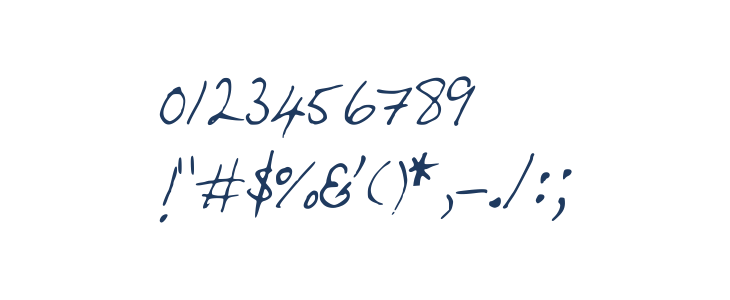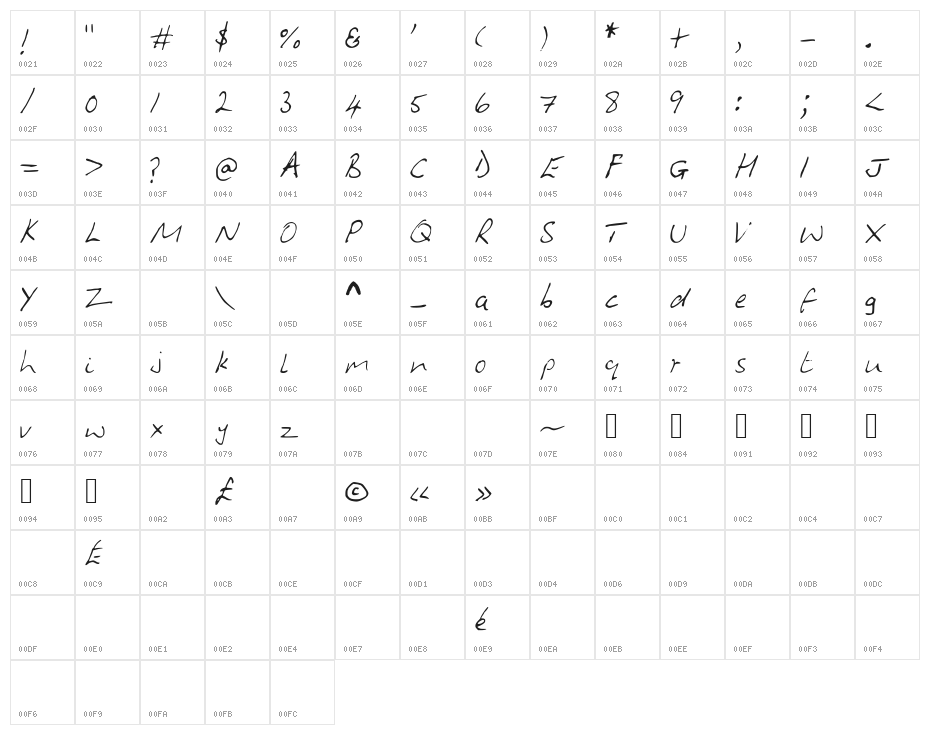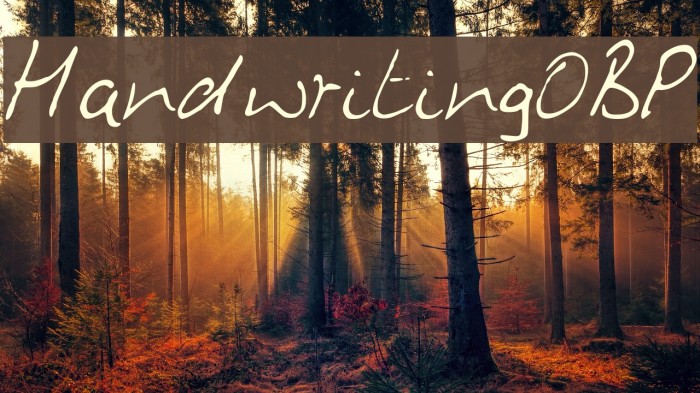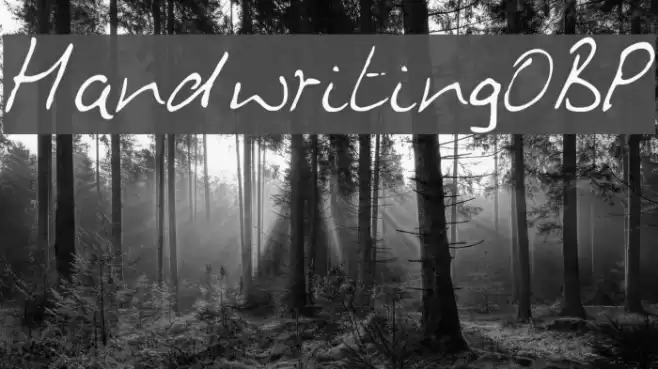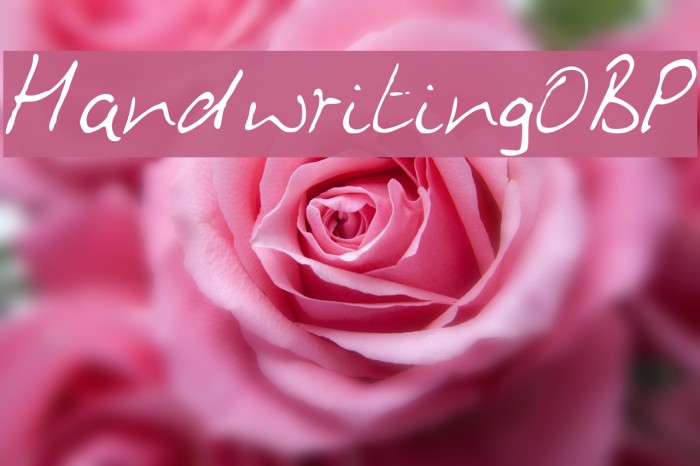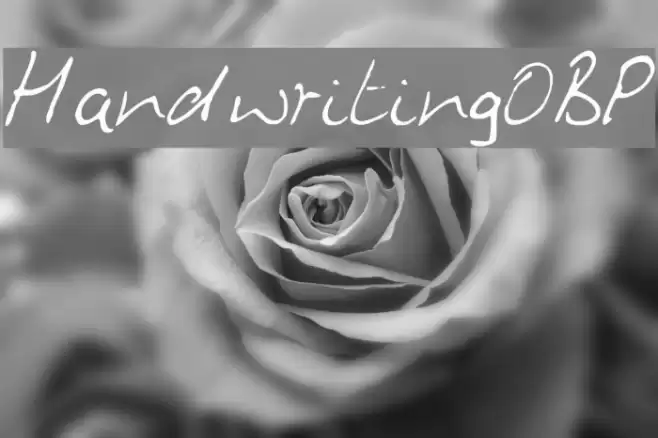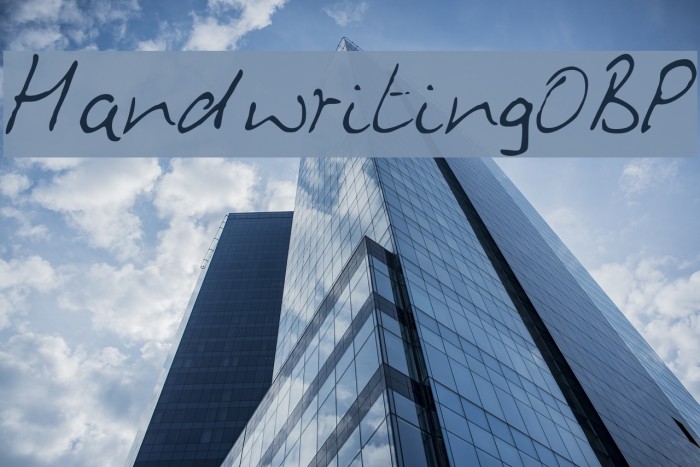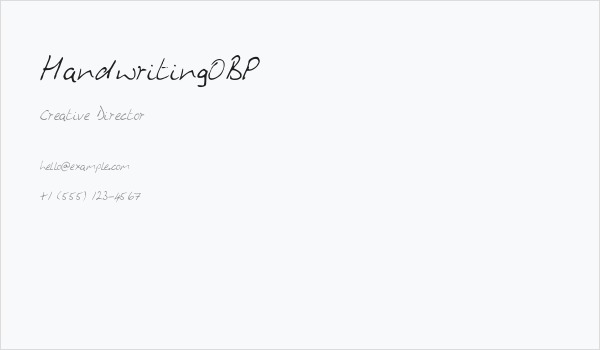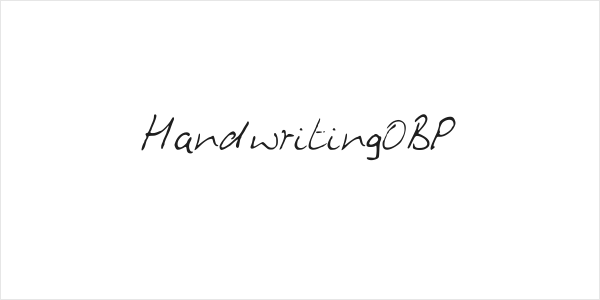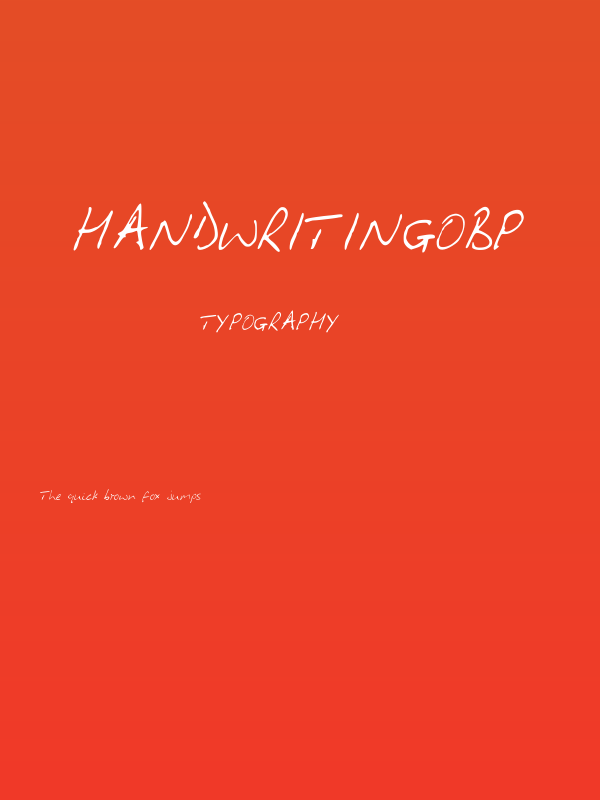
HandwritingOBP Font
HandwritingOBP Description
This font exudes a casual and personal touch, reminiscent of natural handwriting. The characters are fluid and slightly uneven, adding a humanistic and approachable feel. The strokes vary in thickness, providing a dynamic and lively appearance. The uppercase letters are bold and confident, while the lowercase letters maintain a consistent flow, enhancing readability. Numbers and special characters are integrated seamlessly, maintaining the overall handwritten aesthetic. This font is perfect for projects that require a personal or informal tone.
| Overall Style | Casual, Personal |
| Use Case | Headlines, Personal notes, Creative projects |
| Proposed Projects | Ideal for personal notes, invitations, greeting cards, and creative projects that require a human touch. |